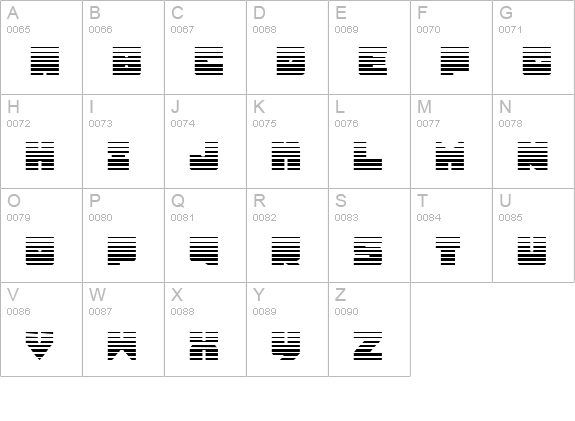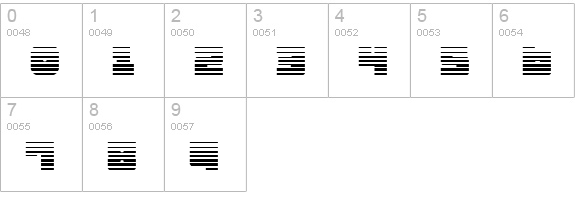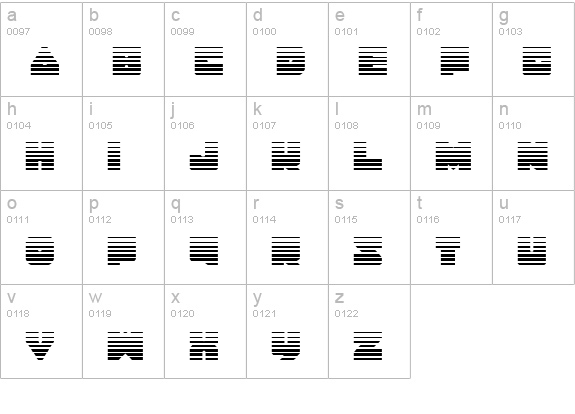
Lobo Tommy Gradient font is a stunning display typeface that exudes modernity and sophistication. Its unique gradient design adds a touch of dynamism and creativity to any project it is used in. This font is perfect for headlines, logos, posters, and other design projects that require a bold and eye-catching look. What sets Lobo Tommy Gradient font apart is not just its aesthetic appeal, but also the fact that it is completely free to download. You can easily access this font at FontsMarket.com and start using it in your designs right away. With its sleek and contemporary style, Lobo Tommy Gradient font is sure to make a statement and elevate your designs to the next level. Don't miss out on this fantastic opportunity to add a touch of flair to your projects with this beautiful font.